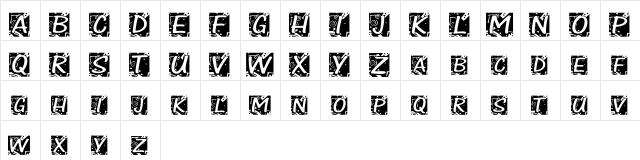
Chloe Confetti Regular Font Preview
Chloe Confetti Regular
Chloe Confetti Regular Font Details
Design Context for Chloe Confetti Typeface
Chloe Confetti is a composed and adaptable typeface that performs quietly and consistently across a wide range of design contexts.